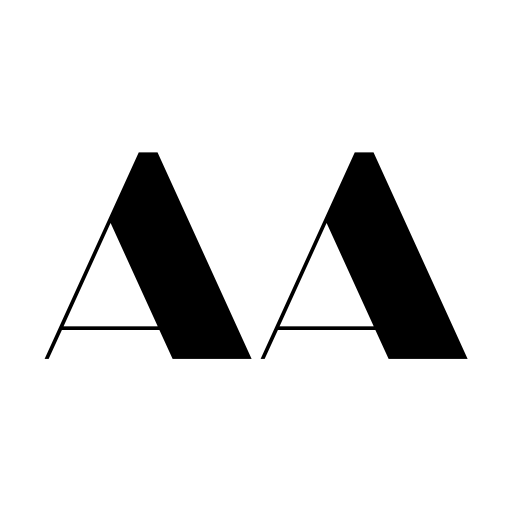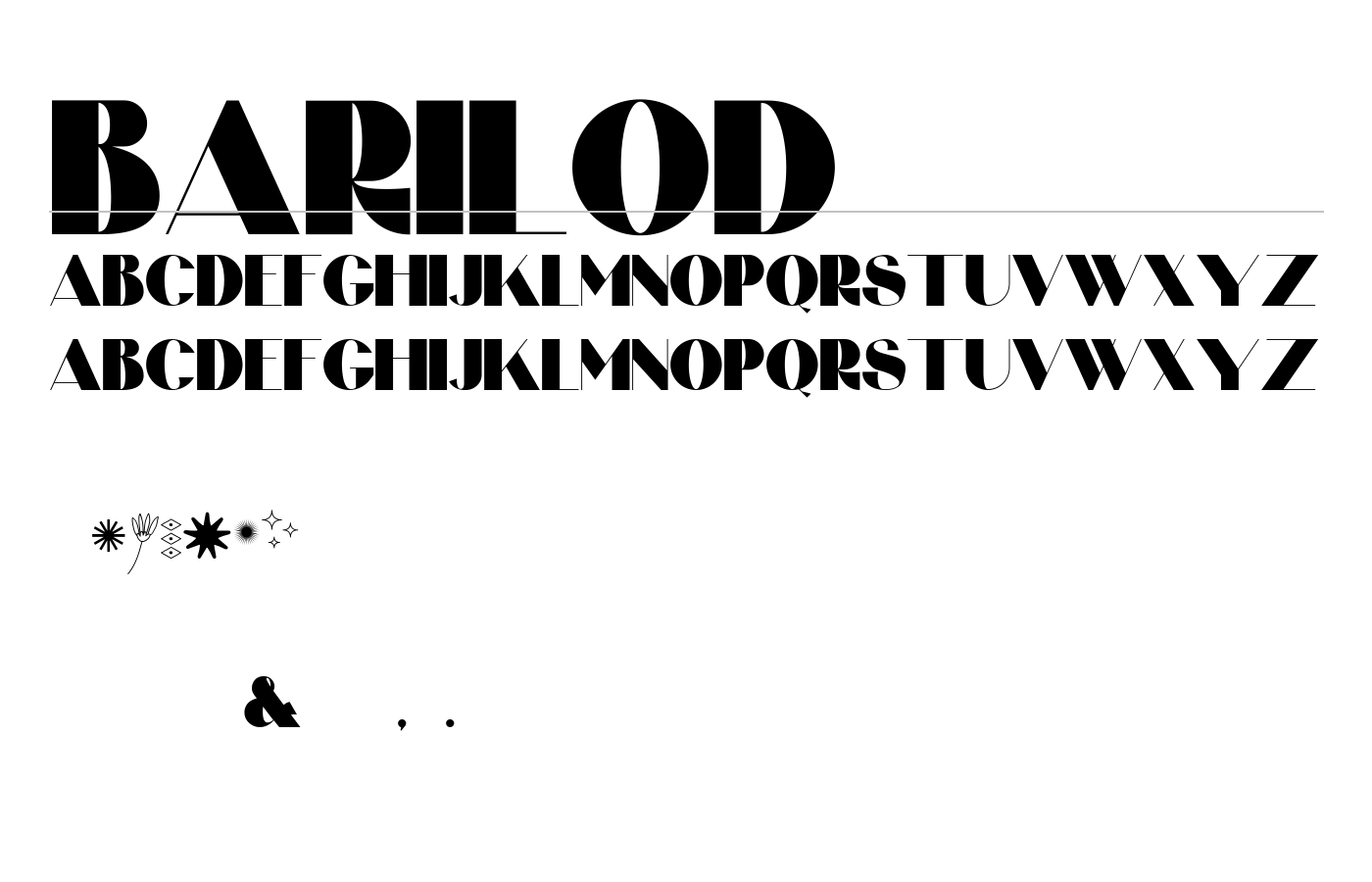
BARILOD is a bold and striking serif typeface that combines high contrast between thick and thin strokes with sharp, geometric edges for a modern yet elegant appearance. Its tall, condensed letterforms feature unique stylistic details such as delicate, thin lines cutting through characters, creating a sophisticated and artistic vibe perfect for luxury branding, editorial headlines, and high-impact poster designs. This font stands out with its strong personality and refined style, making it ideal for projects seeking a blend of contemporary flair and classic elegance.
BARILOD Font
About BARILOD Font